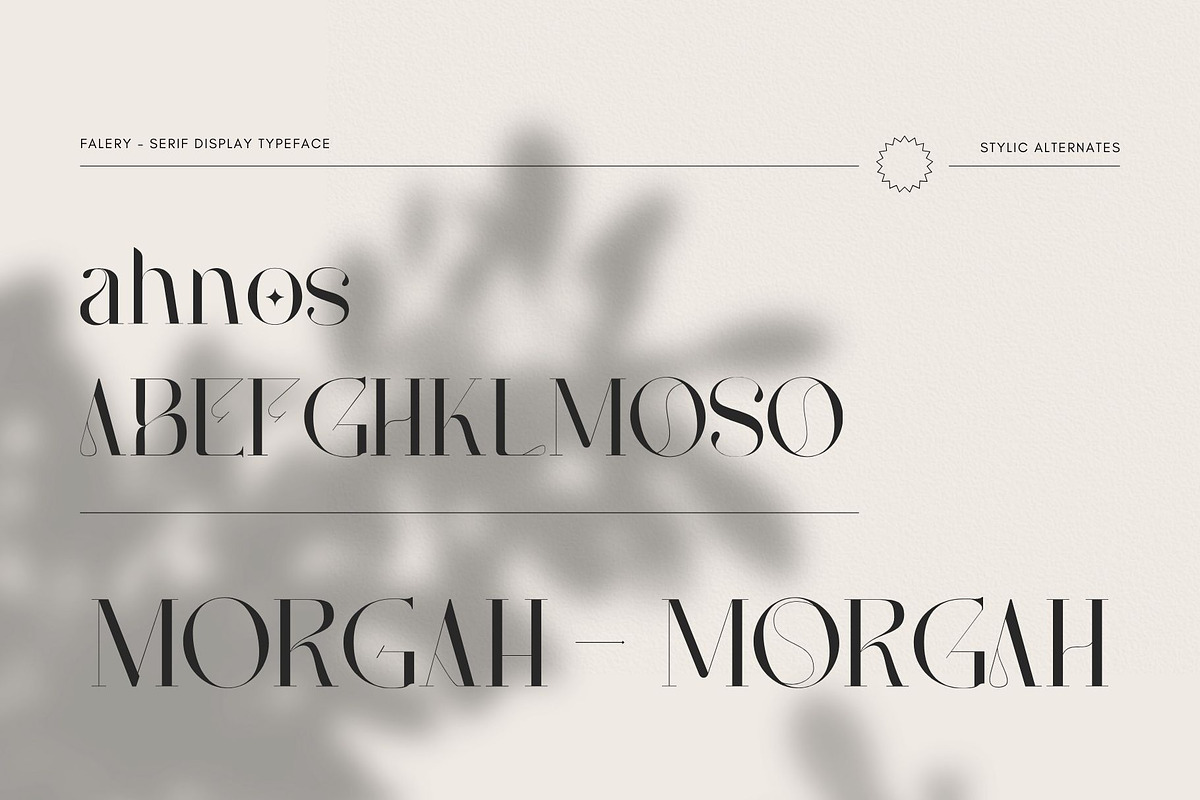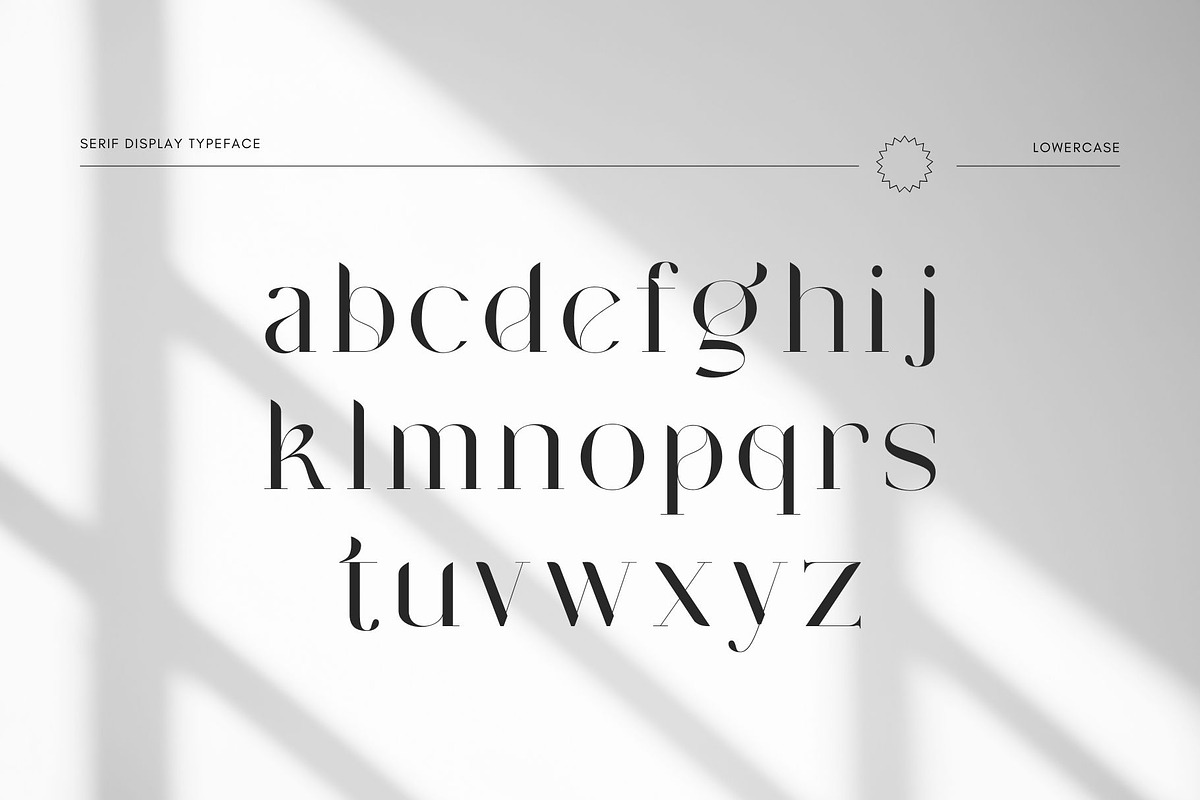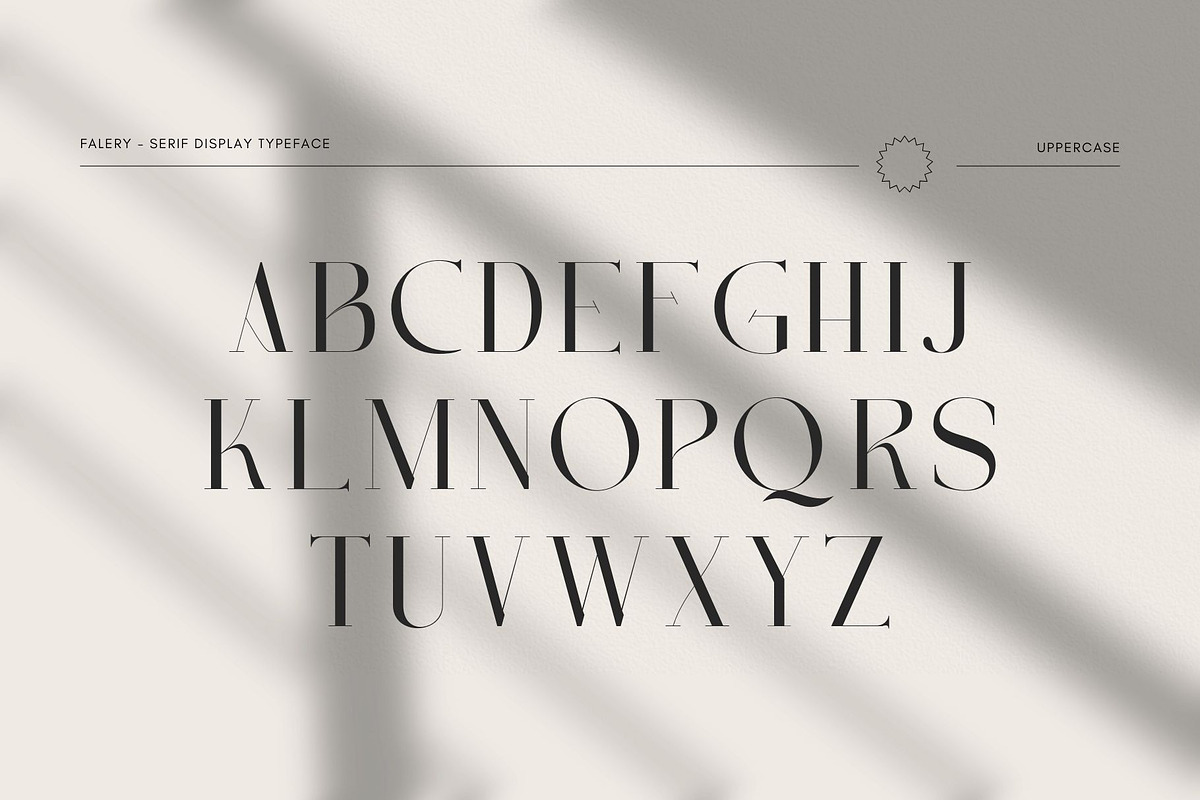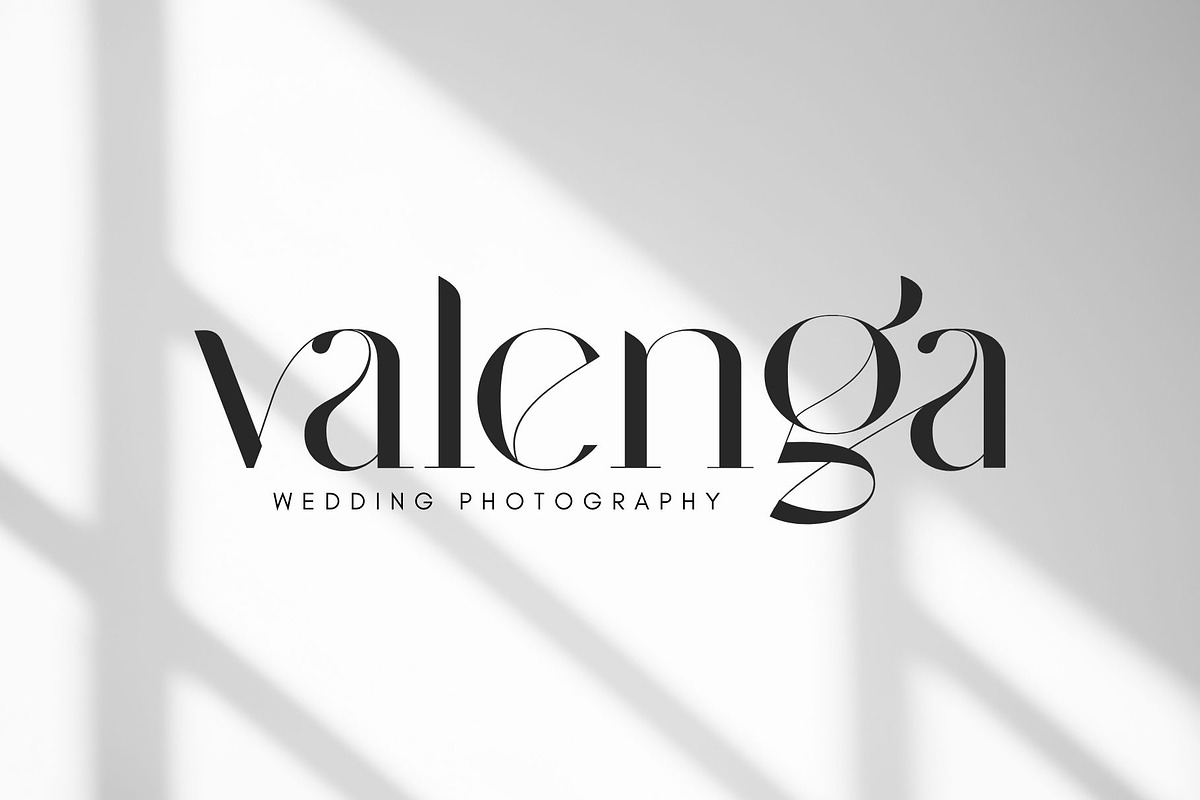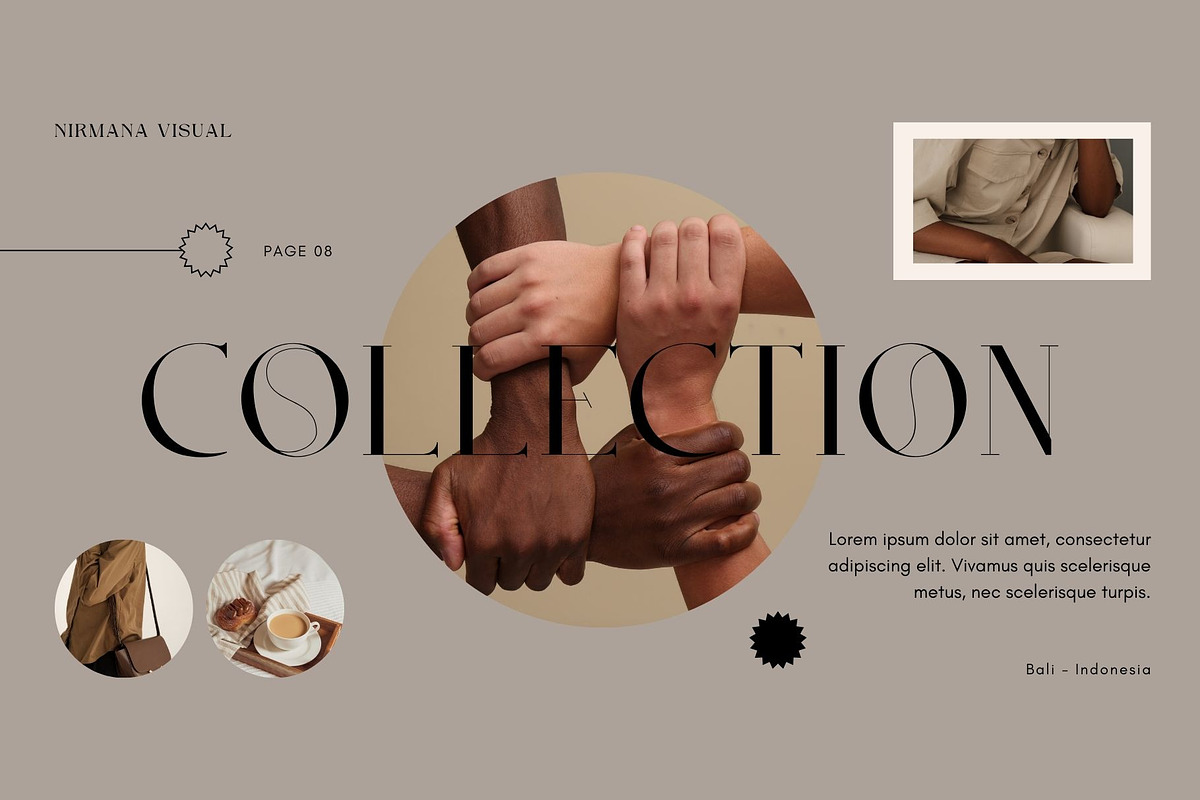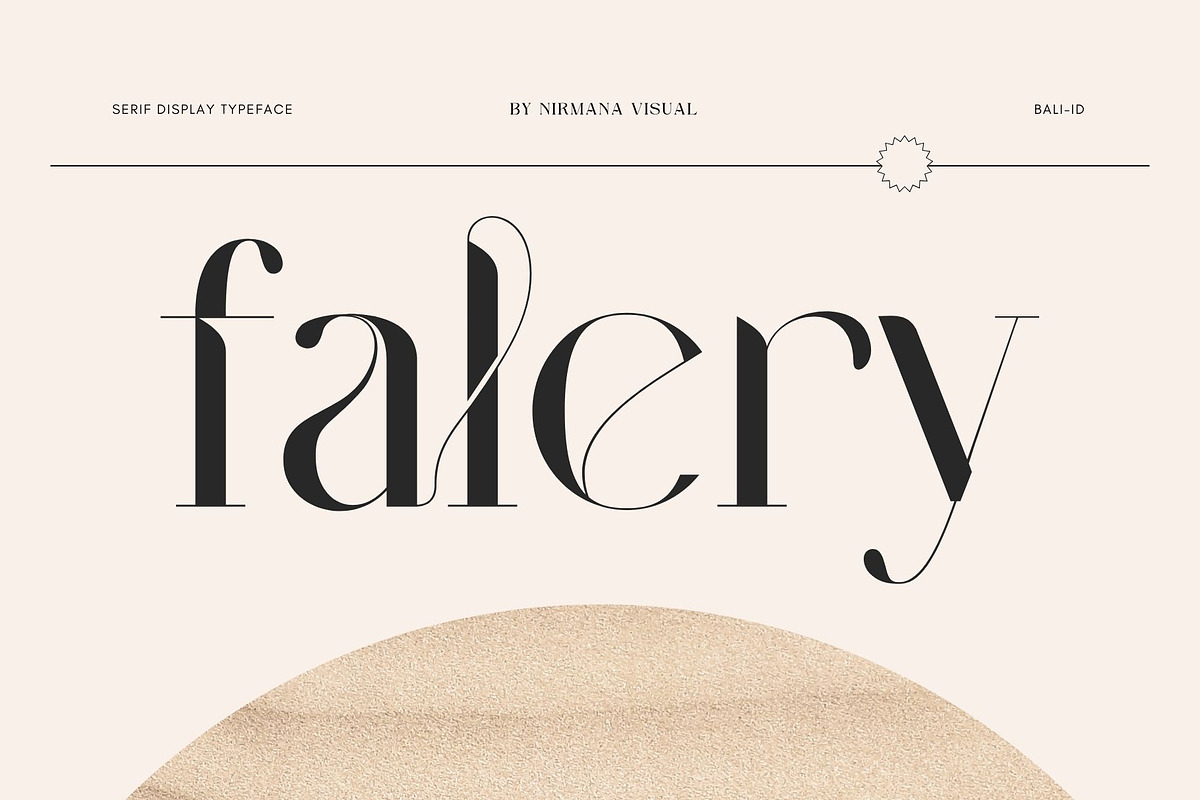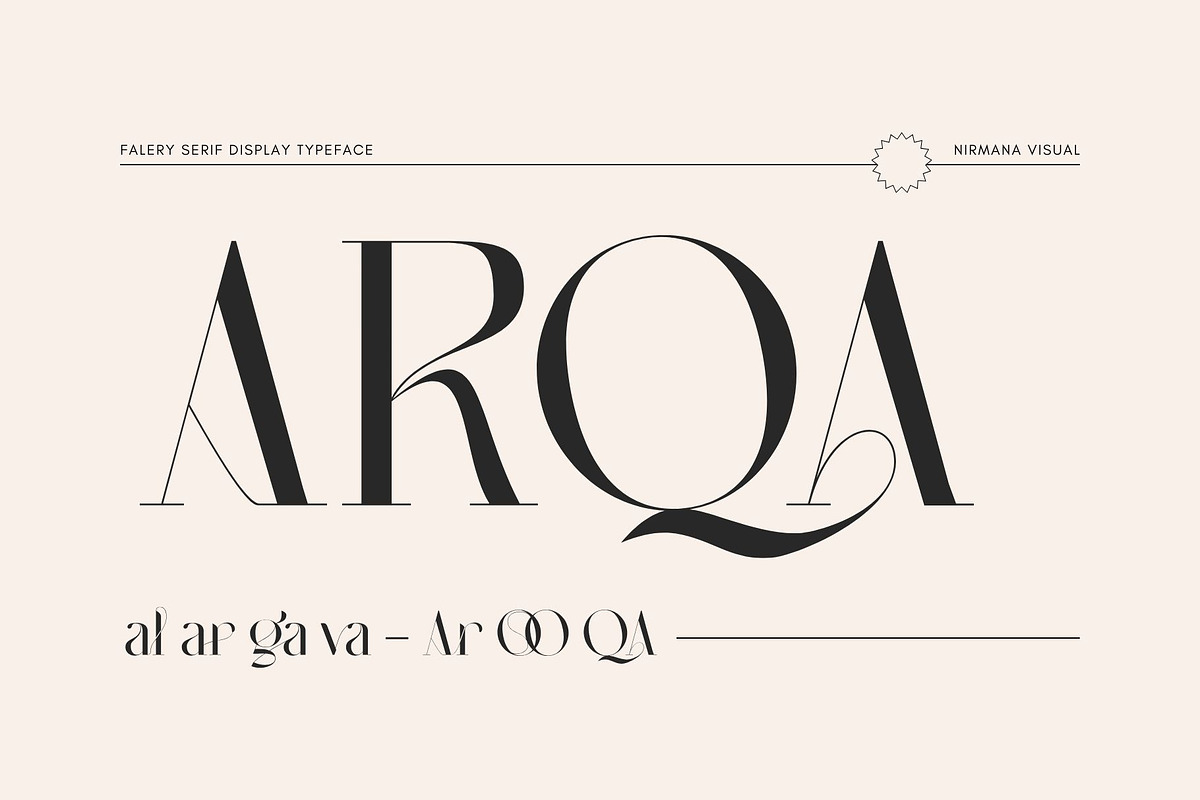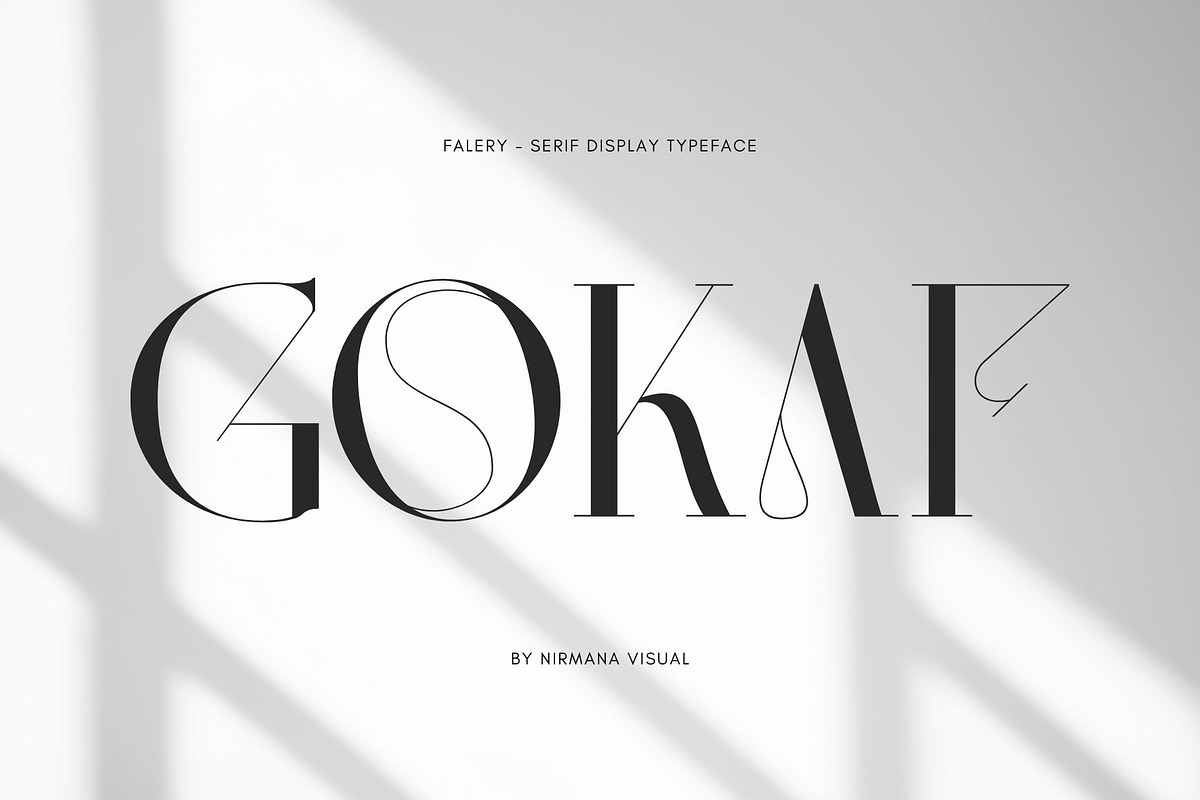
Falery - Modern Serif
Falery - Modern Branding Logo Font
Falery offers beautiful typographic harmony for a diversity of design projects, including logos & branding, social media posts, advertisements & product designs.